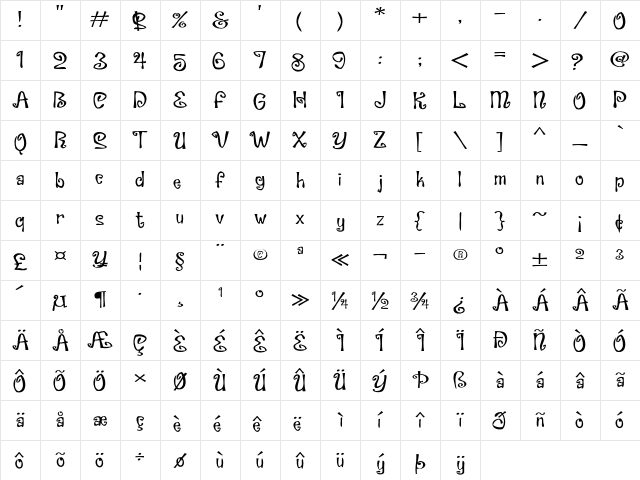
Lillipip Expanded Regular
Style: Expanded Regular
Lillipip Family
Lillipip Expanded Regular
Design Context for Lillipip
Lillipip is a composed and adaptable typeface that performs quietly and consistently across a wide range of design contexts.